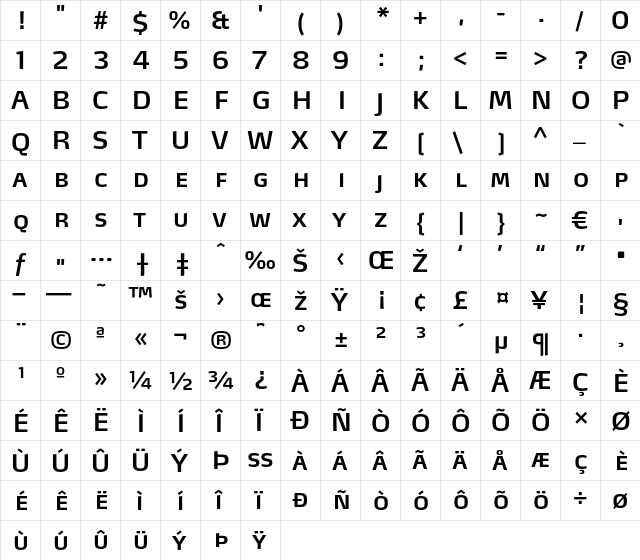
MaxLF-SemiBoldSC Regular Font Preview
MaxLF-SemiBoldSC Regular
MaxLF-SemiBoldSC Regular Font Details
Design Context for MaxLF-SemiBoldSC Typeface
MaxLF-SemiBoldSC takes a measured approach to typography — its balanced proportions and neutral character make it a reliable workhorse for both digital and print work. Its bold stroke weight gives it real presence on the page.